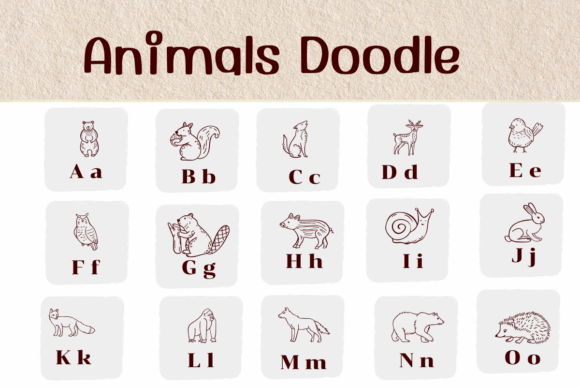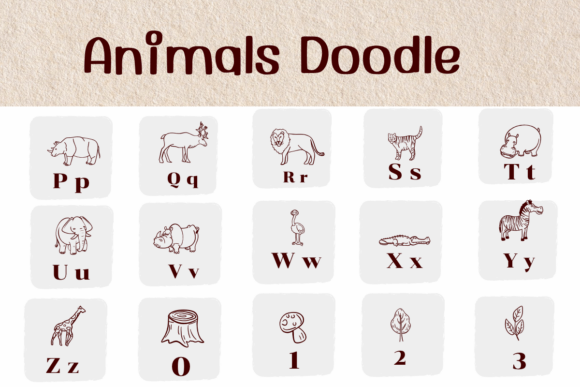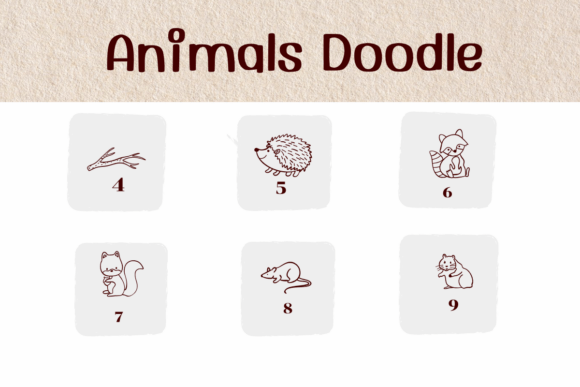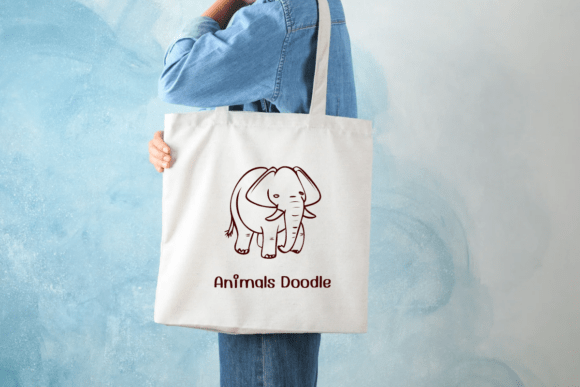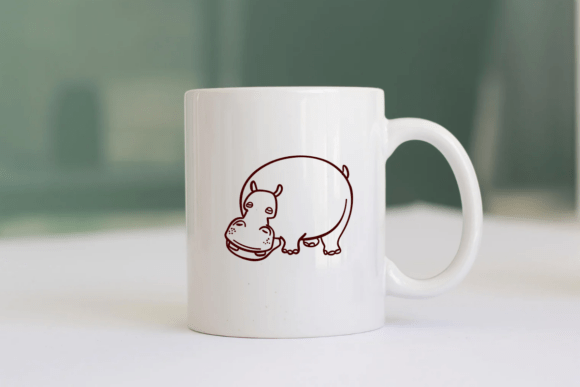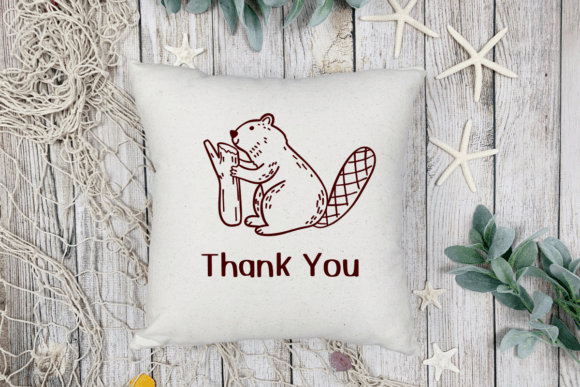
Get Creative with the Cutest Doodles
Who hasn’t had one of those magical moments when creativity strikes, and a spark of inspiration sets off a chain reaction of innovative ideas? It’s like your mind is overflowing with possibilities, and all you want to do is bring them to life. For designers, this feeling is especially exciting, as it often leads to the creation of something truly special.
When you’re working on a project that requires a dash of whimsy and charm, the Animals Doodle Font is the perfect companion. This delightful dingbats font is specifically designed to add a playful touch to your designs, making it an ideal choice for wedding invitations, DIY crafts, and other creative projects.
Animals Doodle Font Key Features
- Unique Hand-Drawn Design: The Animals Doodle Font features a distinctive, hand-drawn style that adds a touch of whimsy and personality to any design.
- Character Count: Includes over 120 unique animal characters, including mammals, birds, reptiles, and more.
Review of Animals Doodle Font
I recently had the chance to work with the Animals Doodle Font, and I have to say it’s a fun and playful addition to any design project. ✨ The font’s unique, hand-drawn style is reminiscent of childhood doodles, making it perfect for creating a whimsical and lighthearted atmosphere.
- Perfect for children’s books, nursery decor, or any project that needs a touch of whimsy
- Easy to read, despite its hand-drawn appearance
- Can be used for a variety of purposes, from headings to body text
However, I do have a few reservations about the font. ⚠️ For one, the characters may not be as uniform in terms of spacing and stroke width, which can make it challenging to use in long blocks of text. Additionally, the font may not be suitable for projects that require a high level of professionalism or sophistication.
Overall, I think the Animals Doodle Font is a great choice for designers who want to add a playful touch to their projects. While it may have some limitations, its unique style and ease of use make it a valuable addition to any design toolbox.
The Animals Doodle Font is perfect for creating playful and whimsical designs, such as:
Children’s book illustrations
Party invitations and decorations
Food and beverage branding
Q: Can I customize the Animals Doodle Font to create new characters or glyphs?